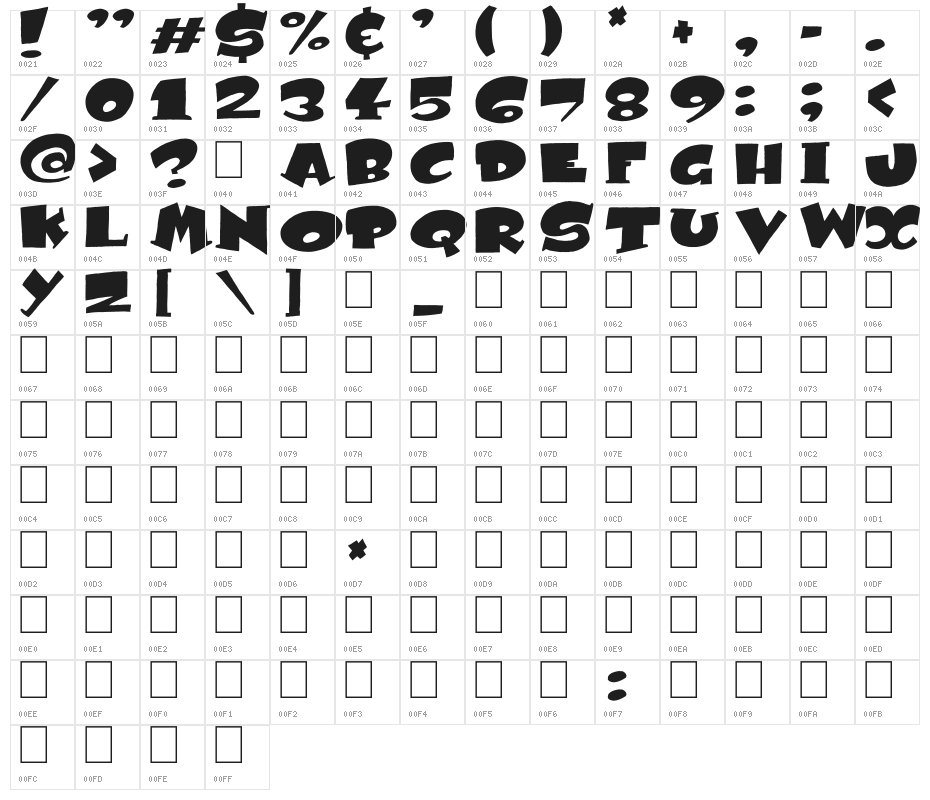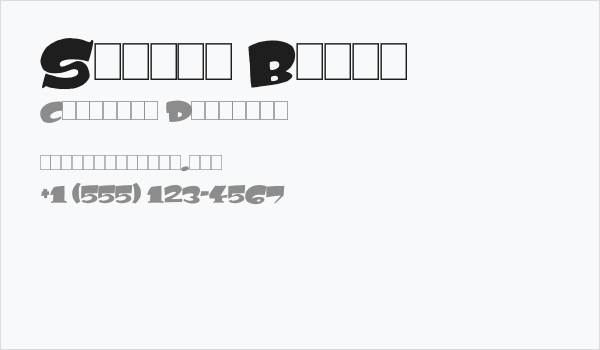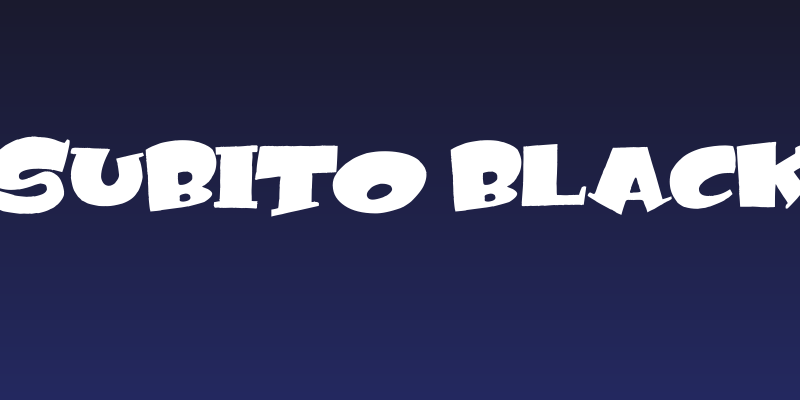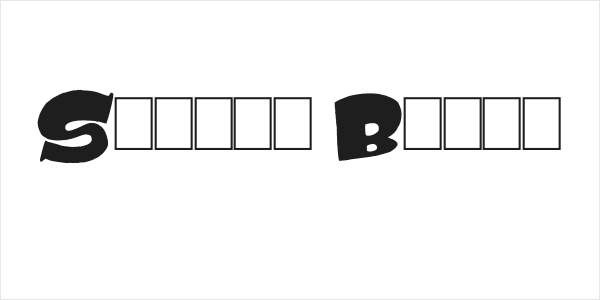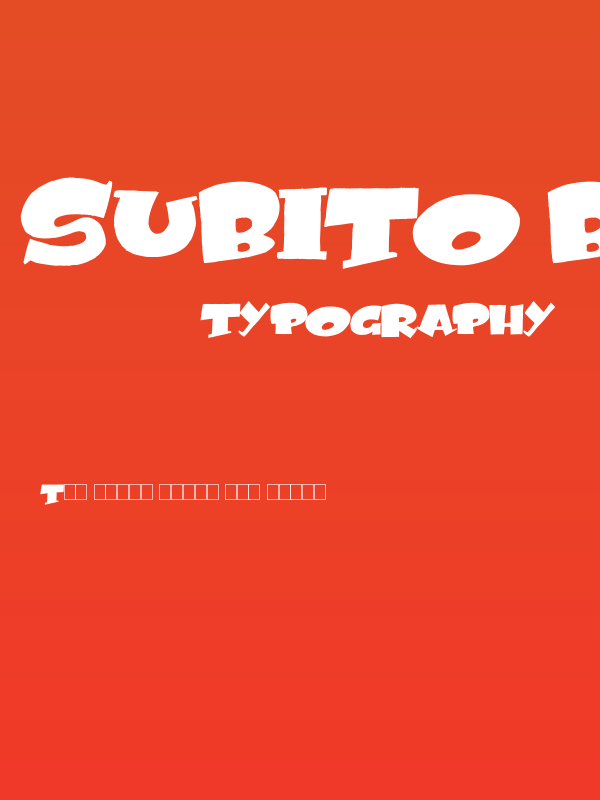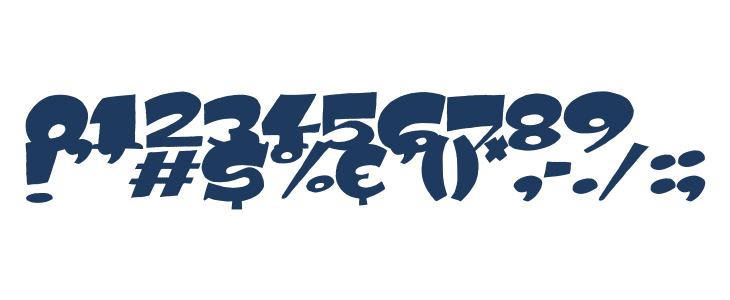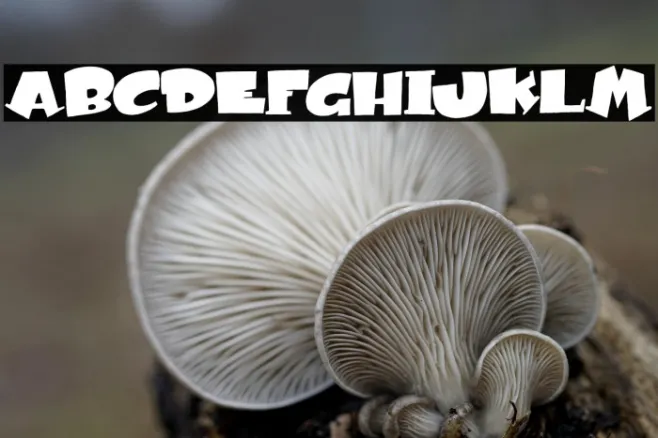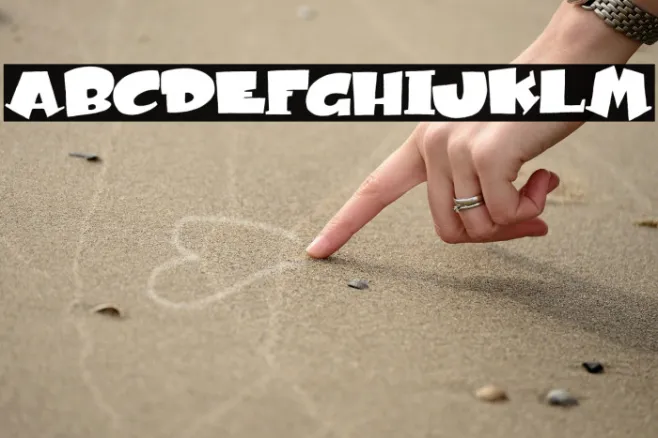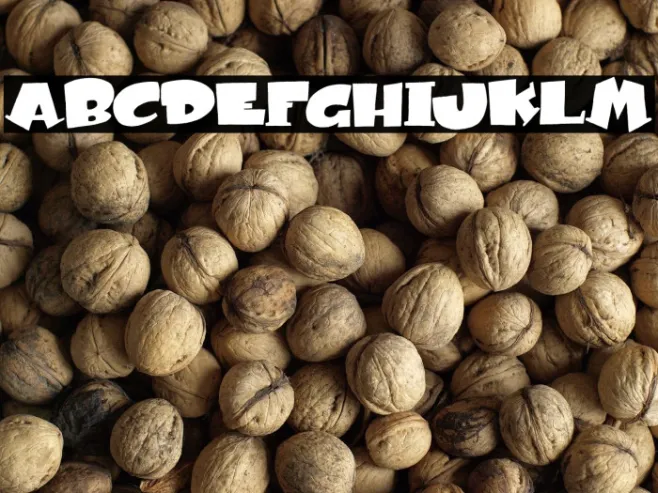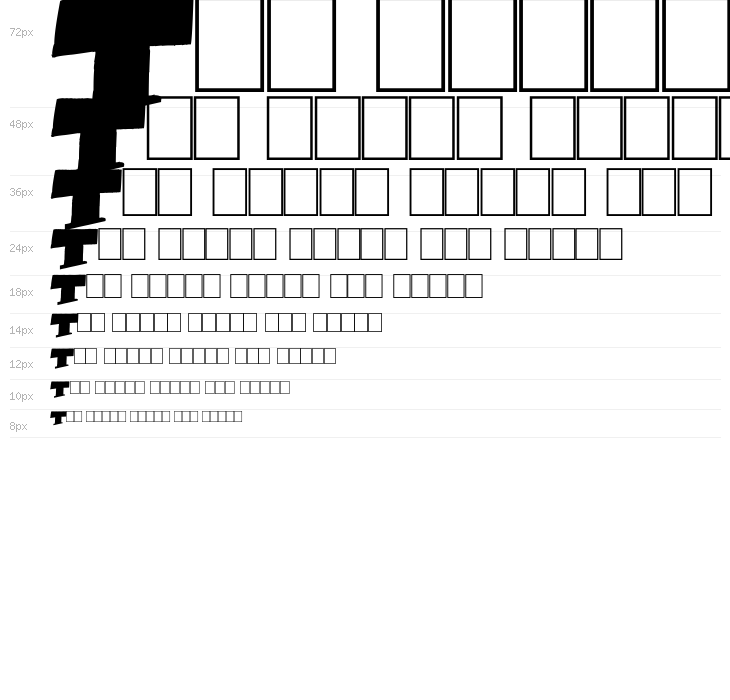
Subito Black Font
Subito Black Description
This font features bold, dynamic characters with a playful and energetic style. The uppercase letters are robust and slightly slanted, giving a sense of movement and excitement. The numbers and special characters maintain this lively aesthetic, making them perfect for attention-grabbing designs. The font's thick strokes and unique shapes create a strong visual impact, ideal for projects that require a bold statement.